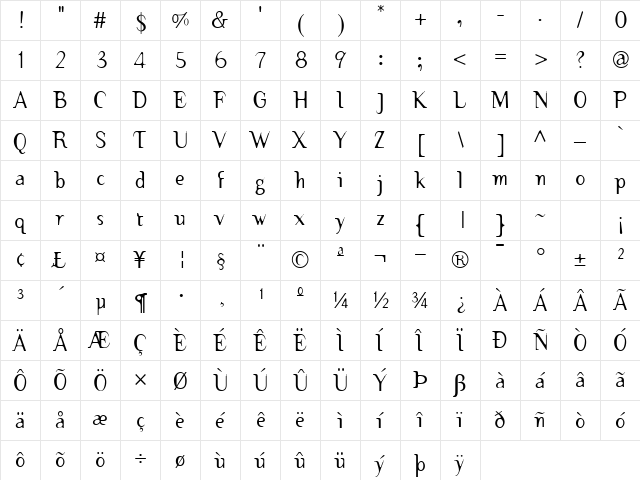
TemaCantanteRegular Regular
Design Context for TemaCantanteRegular Typeface
TemaCantanteRegular takes a measured approach to typography — its balanced proportions and neutral character make it a reliable workhorse for both digital and print work.
Pro Tip: Use TemaCantanteRegular in both headline and body roles to test its range before committing to a single application.